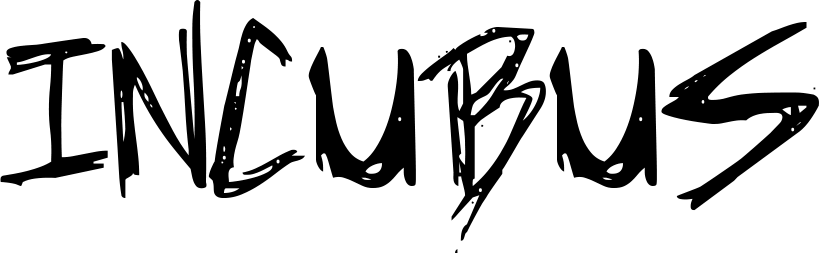
Incubus Font
What do you think about creating a creepy and spooky vibe for your content with careless and hand-drawn letters? If you are positive about that idea, we suggest trying Incubus, a emo font that can be used in so many products like comic books, scary movies, magazines, posters, and flyers.
This typeface offers you 3 options with each containing the uppercase of the alphabet, the numbers, and the punctuation marks apart from the lowercase.